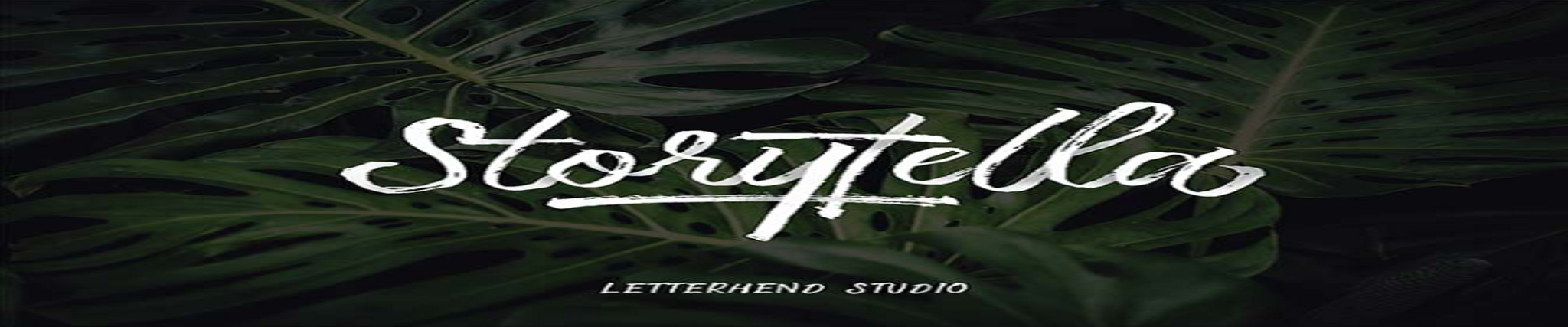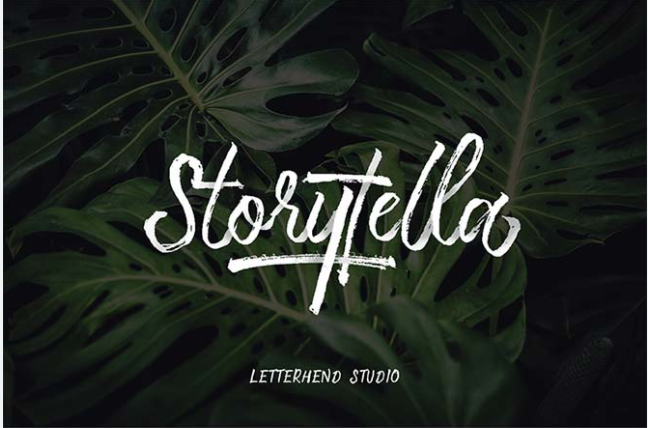
Storytella is a new handwritten brush font. Storytella Handwritten Brush Font is amazing brush font, every single letter has been carefully crafted to make your text looks beautiful. Storytella is an amazing handwritten brush font. It’s come with a lot of alternate characters and swashes.